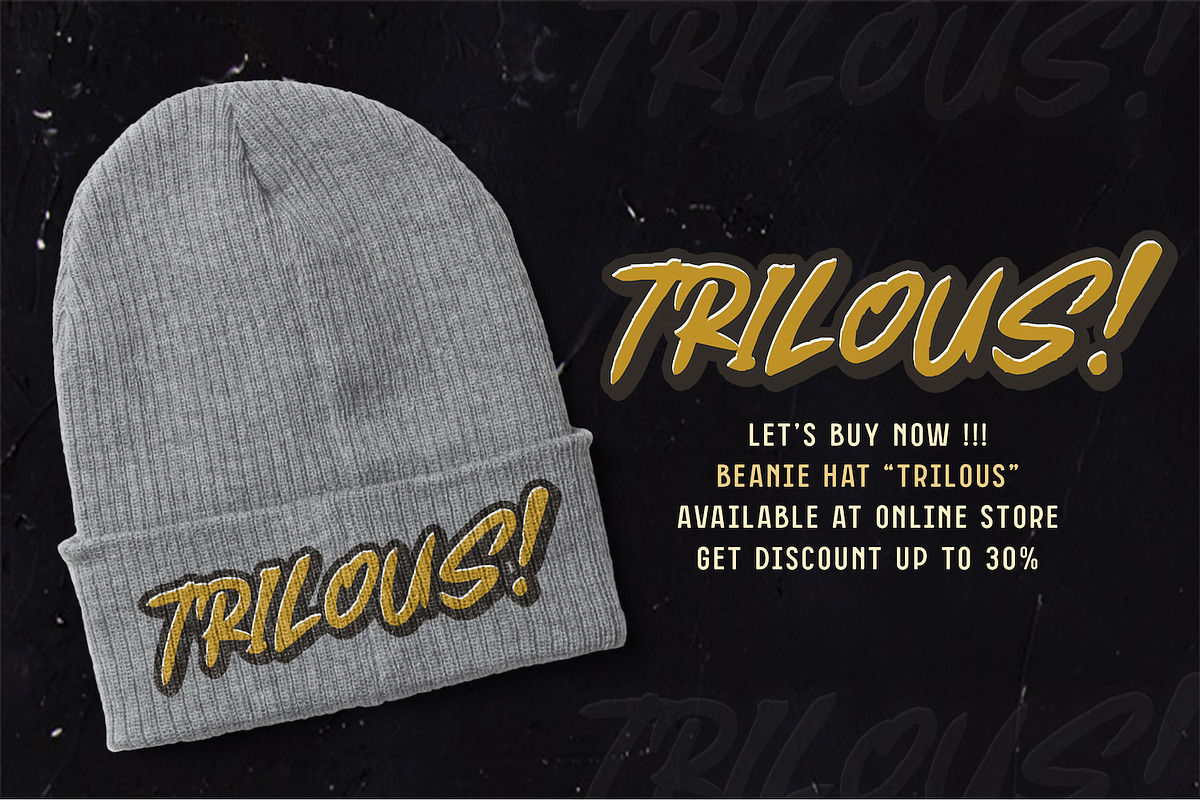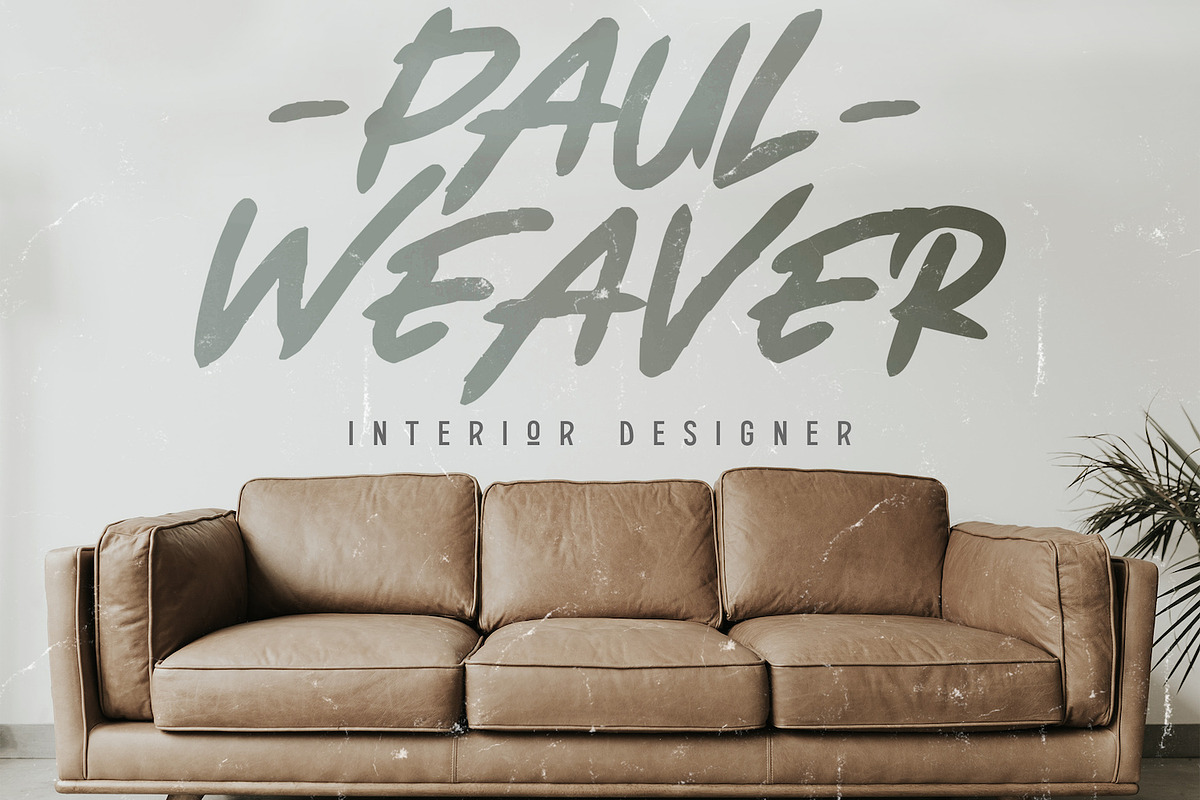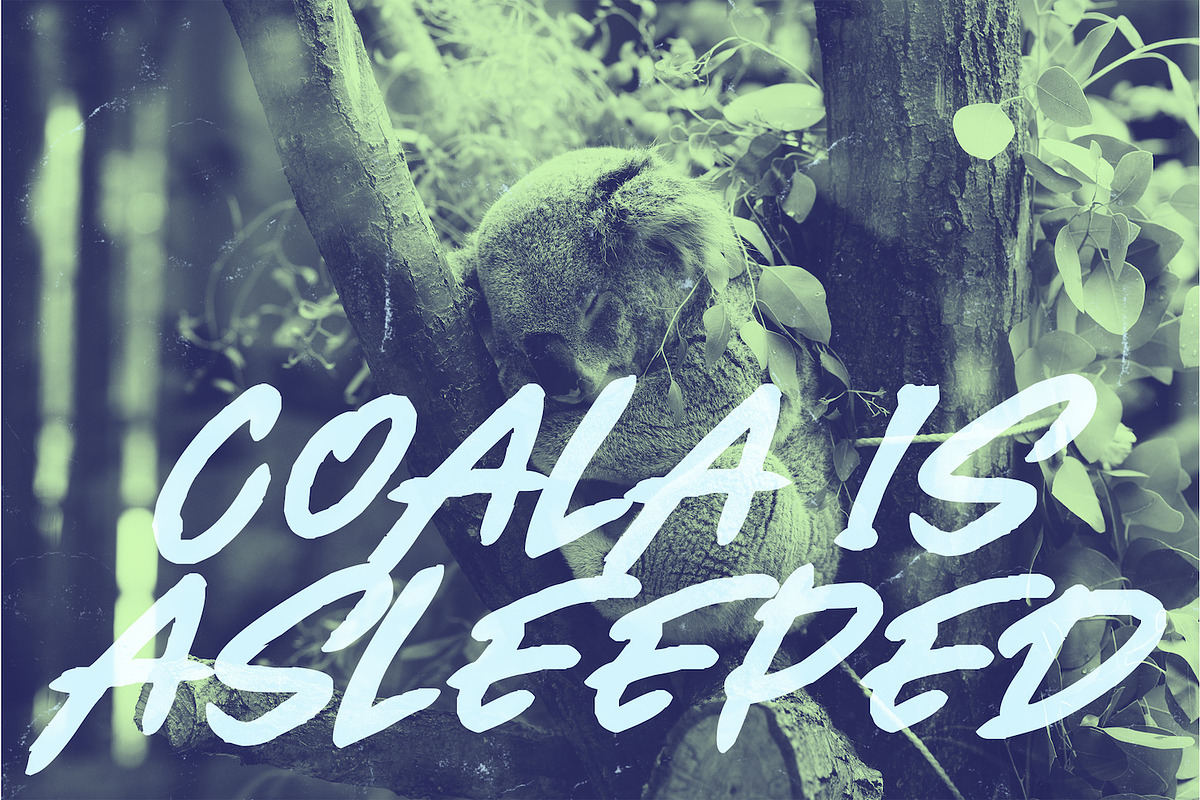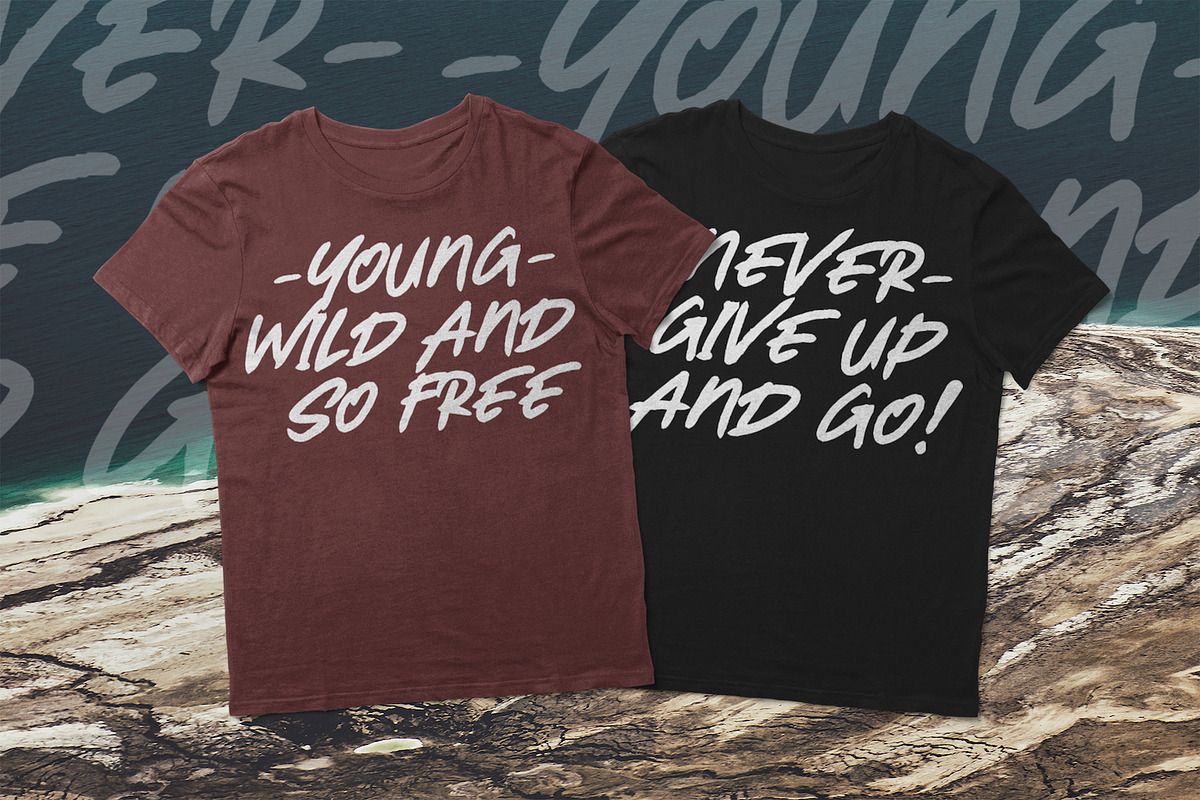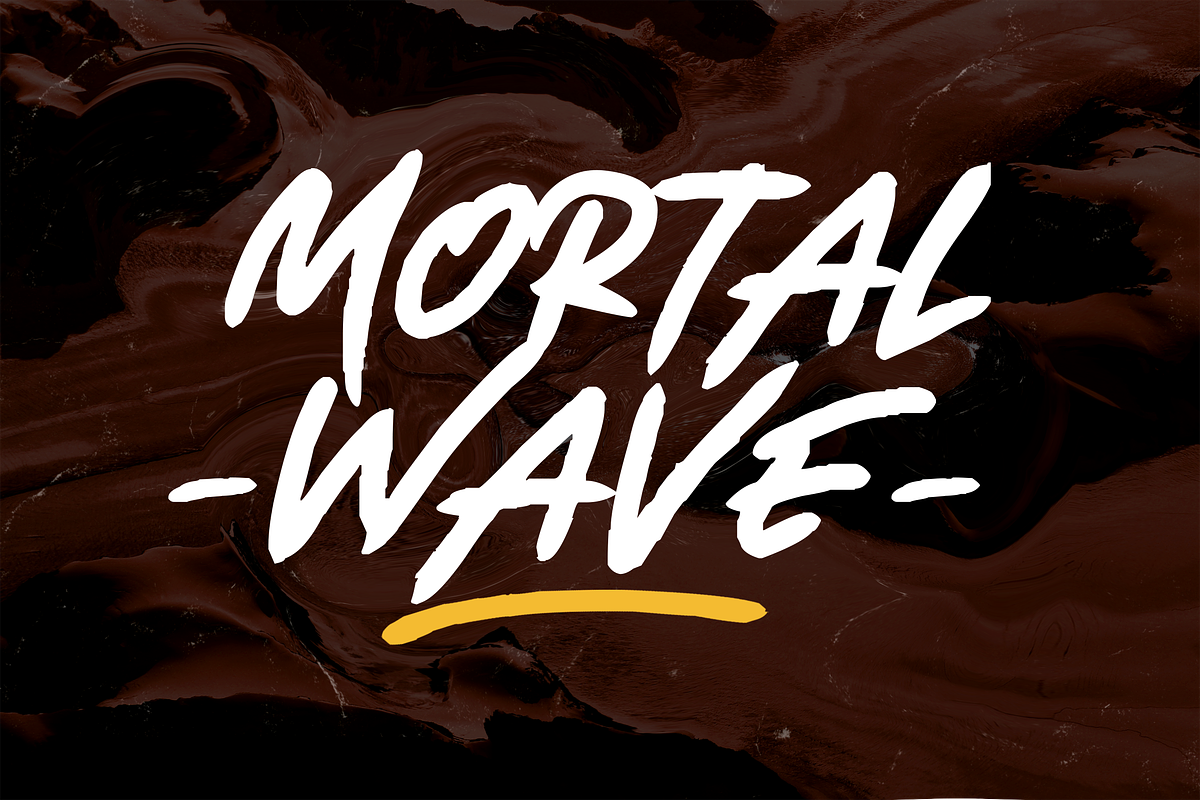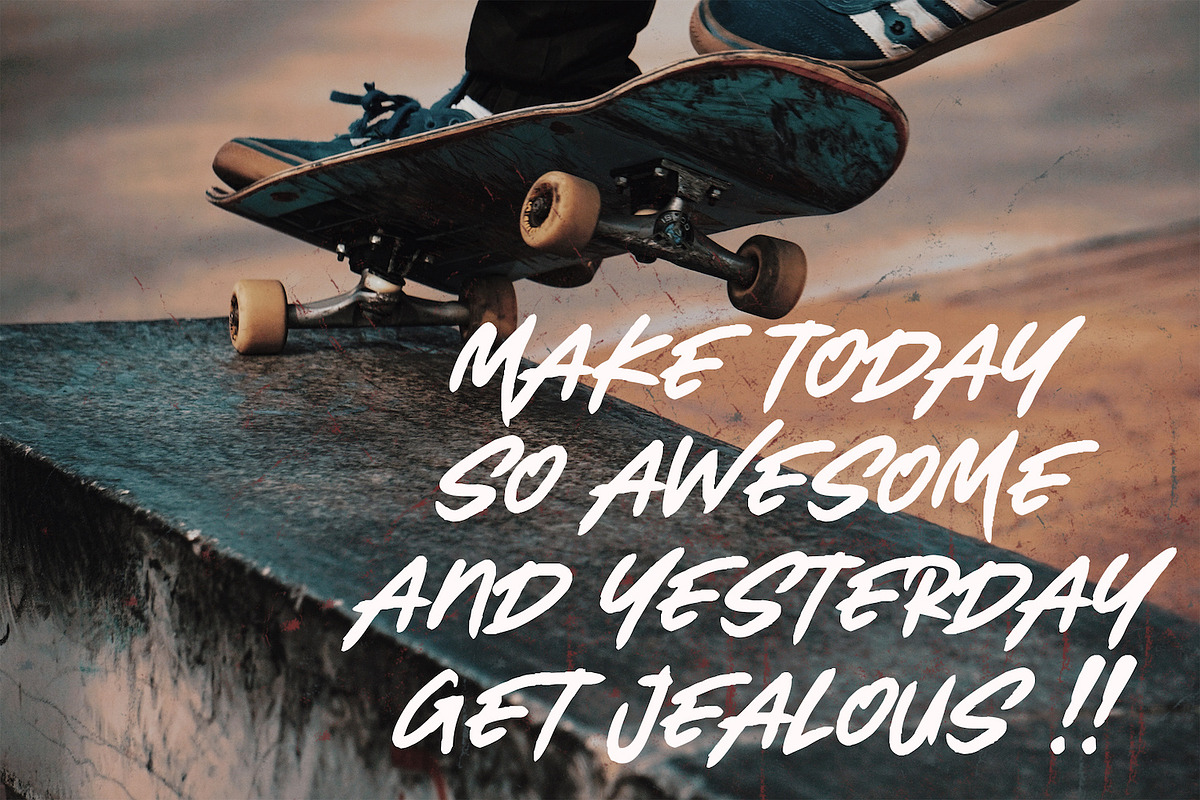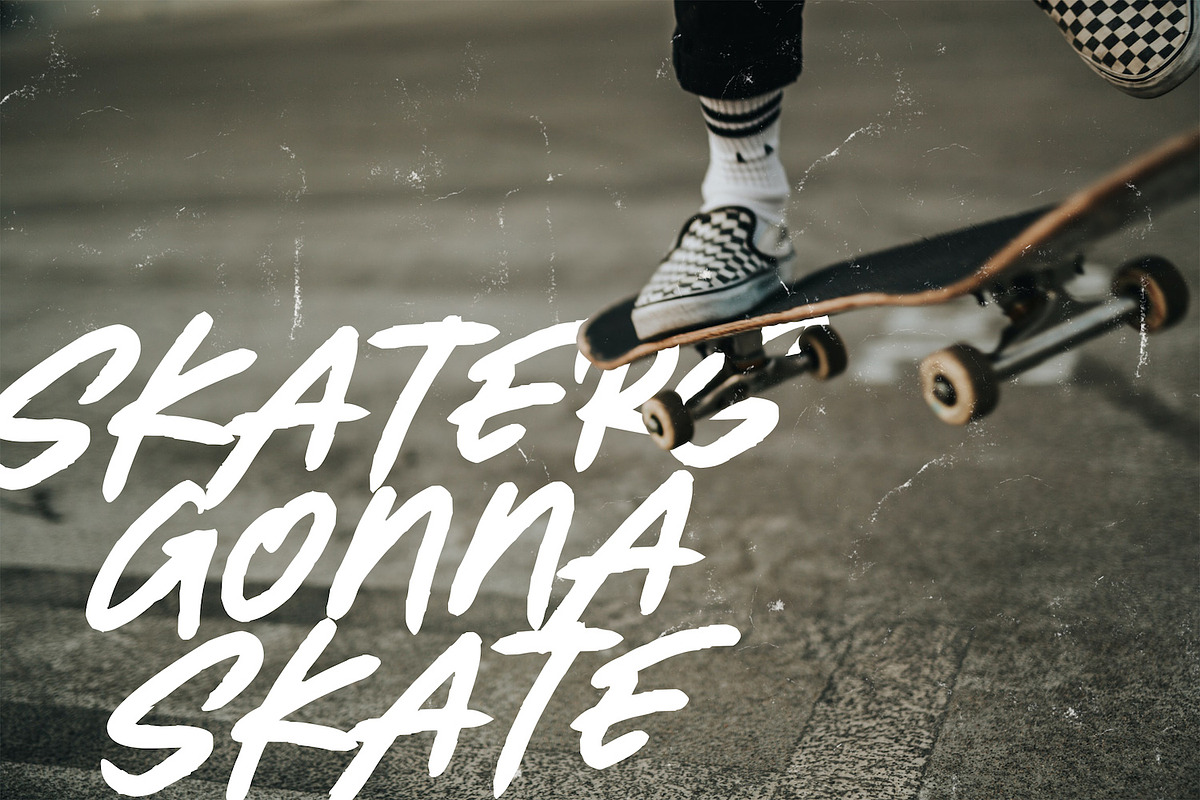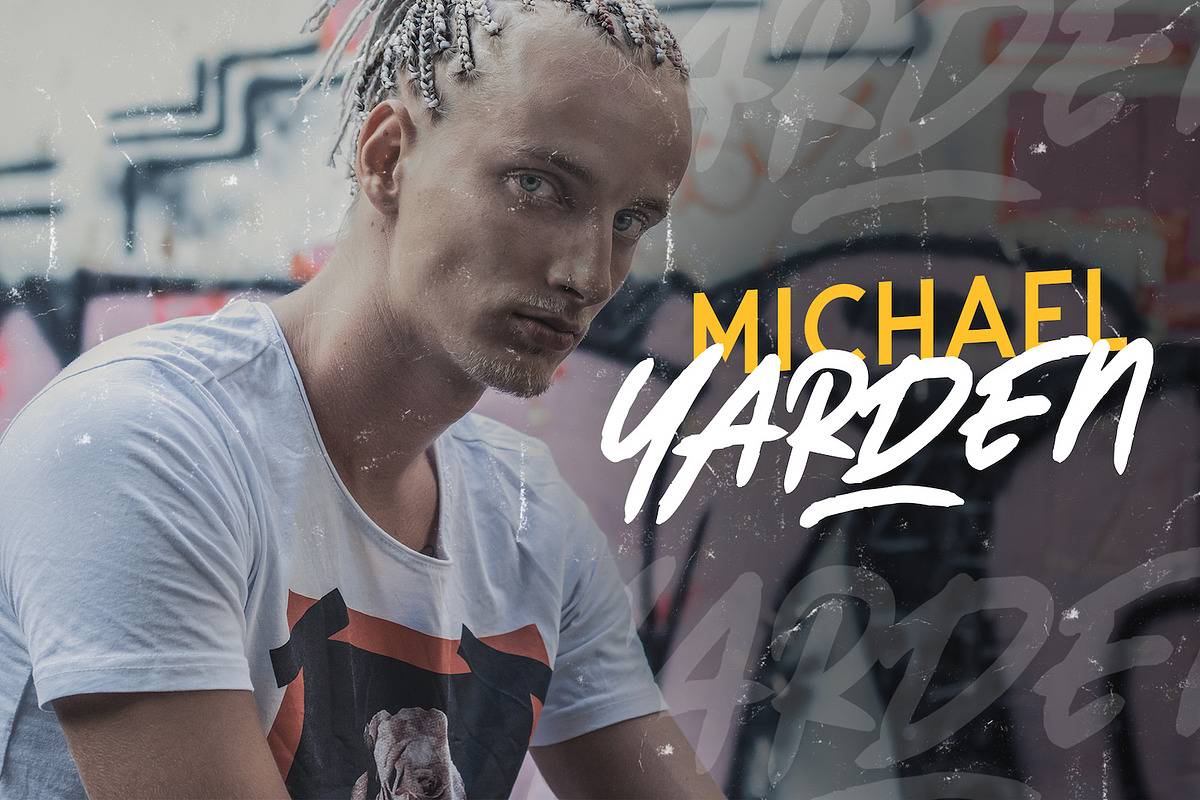
Mortal Wave - Dry Brush Font
Introducing Mortal Wave - Dry Brush Font
The Mortal Wave is natural dry brush font. It’s perfect for logos, quotes, posters, playful lettering, for clothing, and every other design which needs an unique touch.
Why Mortal Wave - Dry Brush Font is worth a look
Mortal Wave - Dry Brush Font by StringLabs fits naturally into Branding, posters, packaging, typography.